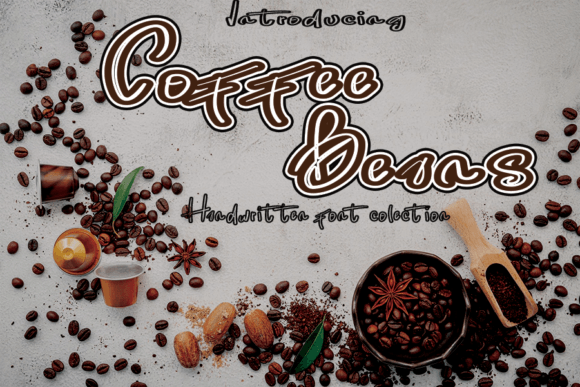
The Ultimate Guide to Coffee Beans Font: Your New Go-To for Creative Projects
I’ll never forget the time I was working on a project for a client who wanted a warm and cozy vibe for their branding. I had spent hours browsing through font libraries, but nothing seemed quite right. That’s when I stumbled upon Coffee Beans, a simple yet friendly handwritten font that instantly clicked with me. If you’re a designer, crafter, or creative hobbyist looking for a versatile font to add to your arsenal, you’re in the right place!
A Personal Review: What I Love About Coffee Beans
Coffee Beans has quickly become one of my favorite fonts, and here’s why:
- ✨ Easy to read: The font has a clear, rounded quality that makes it perfect for body text, headings, and even titles.
- ✅ Versatile: Whether you’re designing for digital or print, Coffee Beans adapts seamlessly to different formats and styles.
- 💕 Warm and inviting: The handwritten feel of this font adds a touch of personality to any project, making it ideal for crafts, greeting cards, and presentations.
The Not-So-Perfect: A Few Quirks to Consider
While Coffee Beans is an excellent font, it’s not without its limitations:
- 🤔 Limited formal applications: Due to its handwritten nature, Coffee Beans might not be the best fit for very formal or corporate projects.
- ⚠️ Some letter spacing issues: In certain situations, the letter spacing can feel a bit off, especially when using all caps or mixing with other fonts.
- Experiment with OpenType features like ligatures and stylistic alternates to add some flair to your text.
- Explore the glyphs and OpenType features to customize your text, such as adding swashes or changing letterforms.
The Story Behind Coffee Beans
Coffee Beans was designed with the intention of creating a friendly, approachable font that could be used in a variety of contexts. The designer aimed to craft a font that felt like a warm cup of coffee on a chilly morning – comforting, inviting, and full of character.
| Font Name | Coffee Beans Font |
| Author | Millea Creative |
| Does Coffee Beans support OpenType features? | Yes, Coffee Beans supports OpenType features like ligatures, stylistic alternates, and glyphs. |
| Is Coffee Beans available in different weights or styles? | Coffee Beans is primarily available in a single weight, but its versatility makes it suitable for various design applications. |